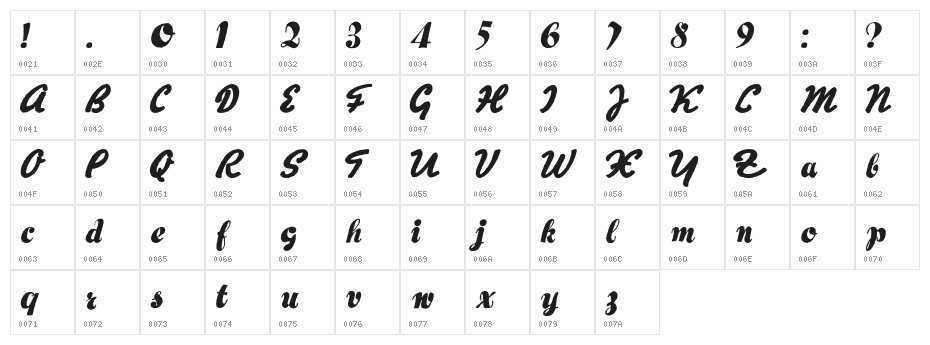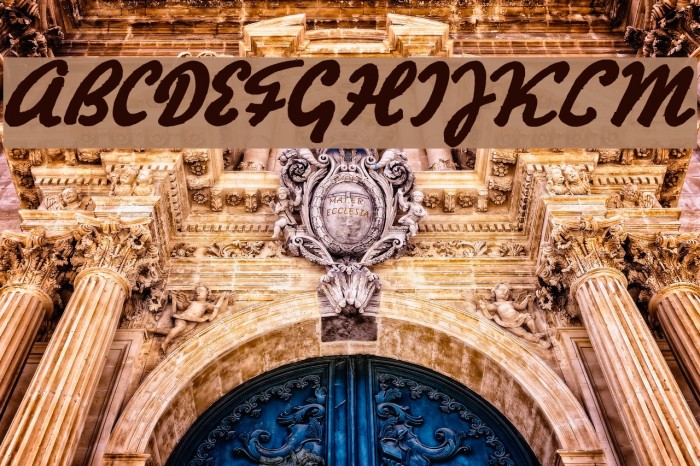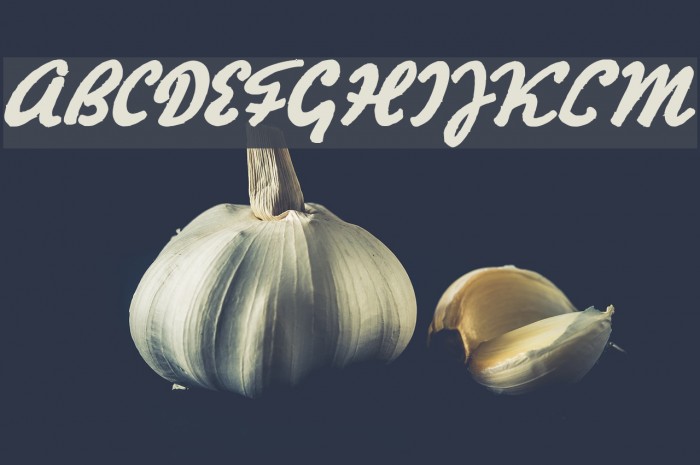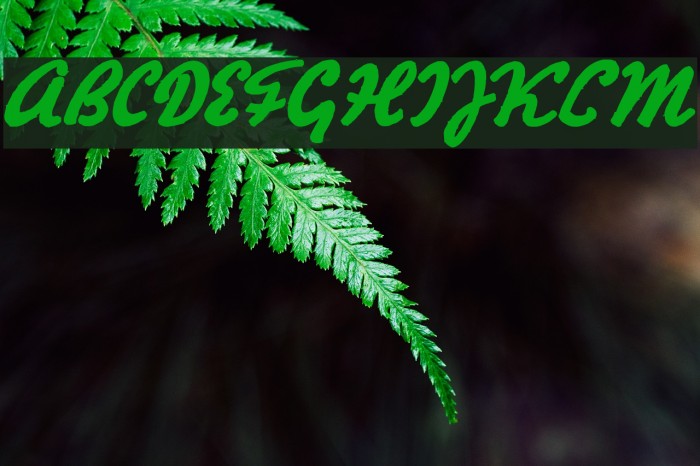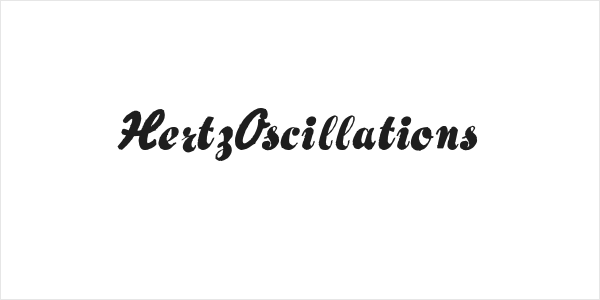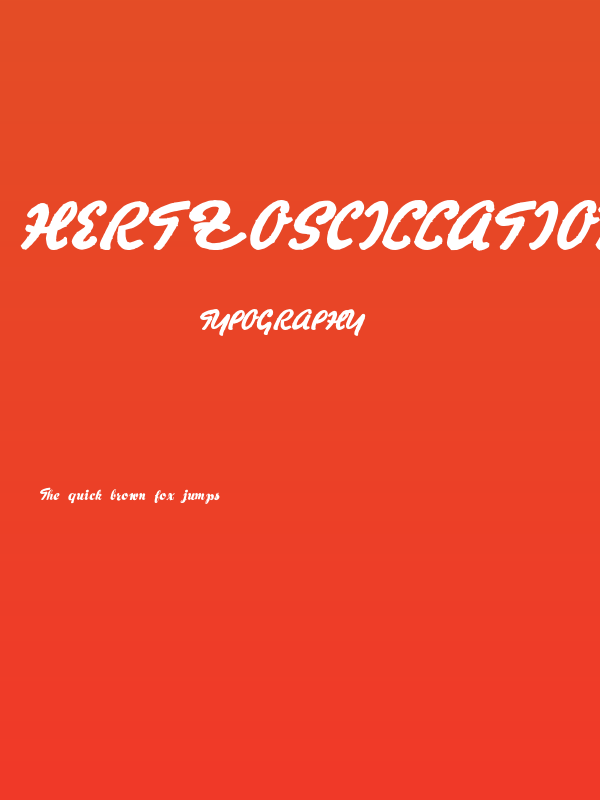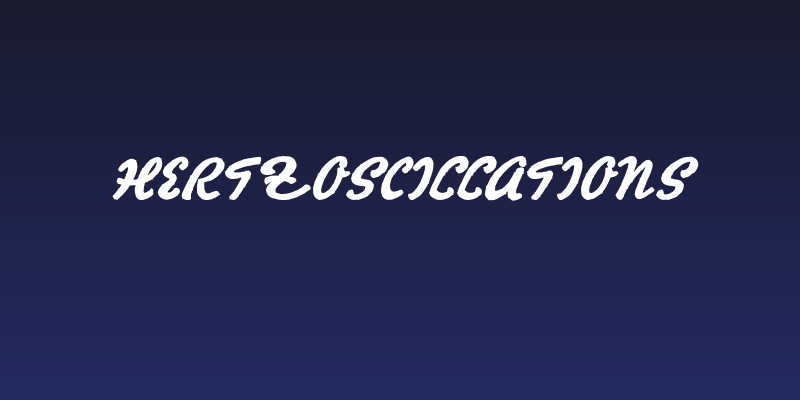
HertzOscillations Font
HertzOscillations Description
This font features a bold and expressive script style, characterized by its flowing, cursive letterforms that convey a sense of elegance and dynamism. The strokes are thick and consistent, providing a strong visual impact. The uppercase letters are particularly ornate, with sweeping curves and flourishes that add a decorative touch. The lowercase letters maintain a cohesive style, with smooth connections between characters that enhance readability. The numerals are equally bold, maintaining the overall aesthetic of the font. This typeface is ideal for projects that require a touch of sophistication and flair.
Use CaseLogos, Headlines, Invitations
Proposed ProjectsIdeal for wedding invitations, branding, logo design, and elegant packaging.